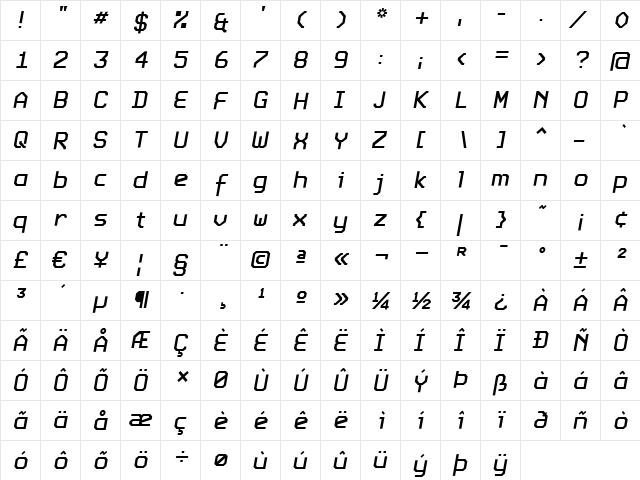
Expo Regular
Design Context for Expo Typeface
Expo takes a measured approach to typography — its balanced proportions and neutral character make it a reliable workhorse for both digital and print work.